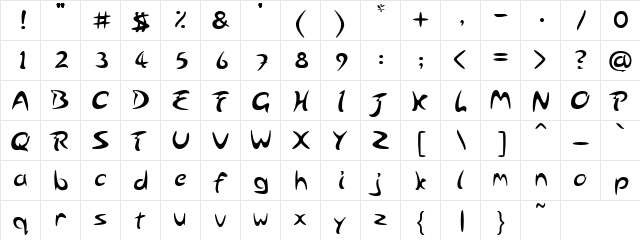
slanteder Regular
Design Context for slanteder Typeface
slanteder is a composed and adaptable typeface that performs quietly and consistently across a wide range of design contexts. The dynamic lean of this cut emphasises speed and emphasis in any layout.
Pro Tip: Try slanteder for annotation and caption copy alongside an upright companion — the contrast in angle creates a dynamic but ordered typographic system.